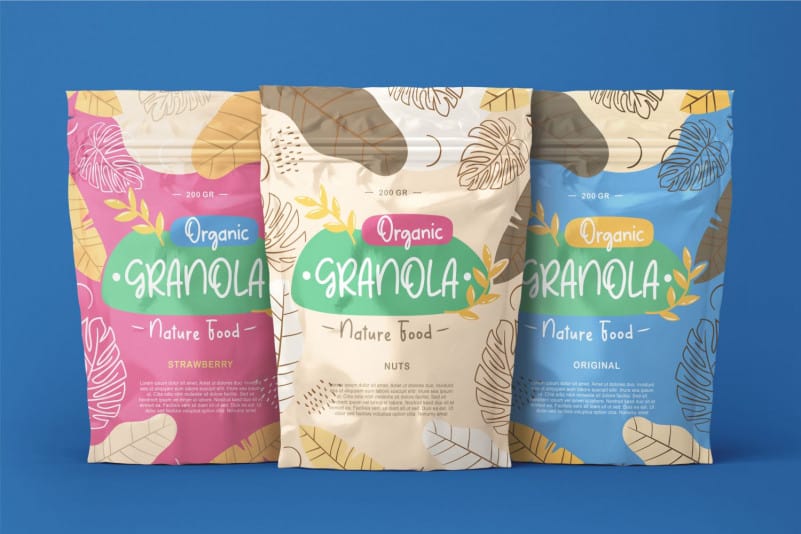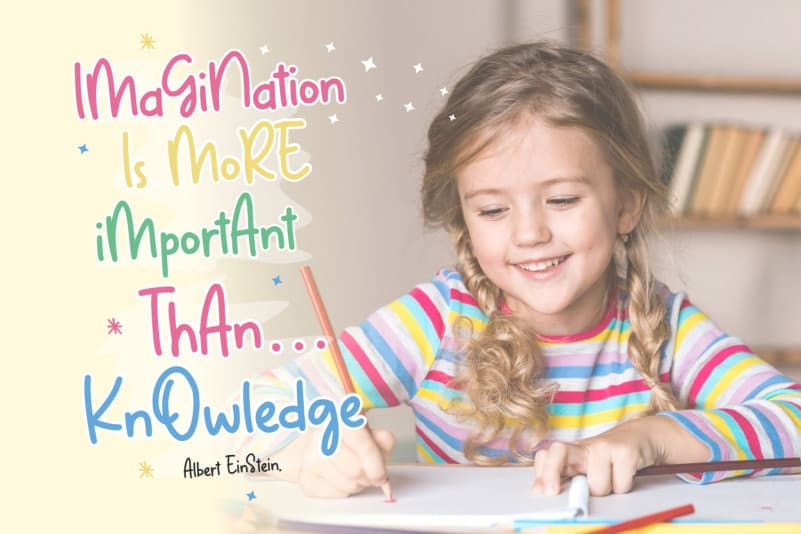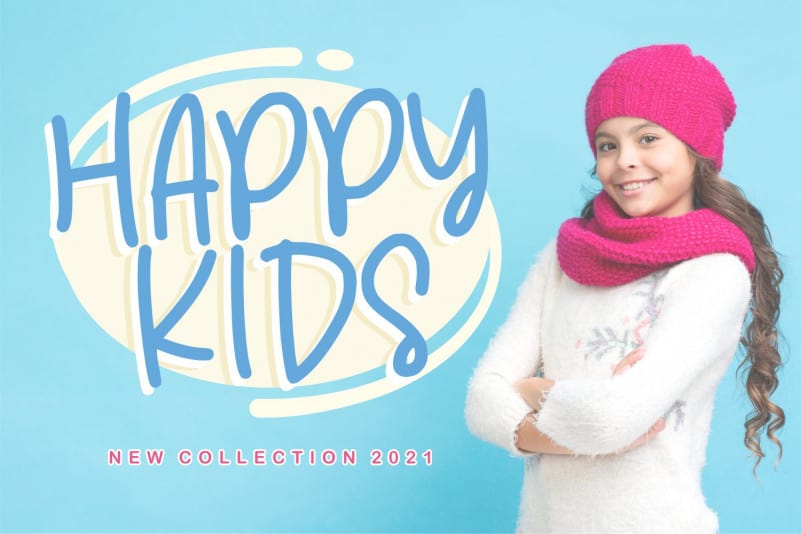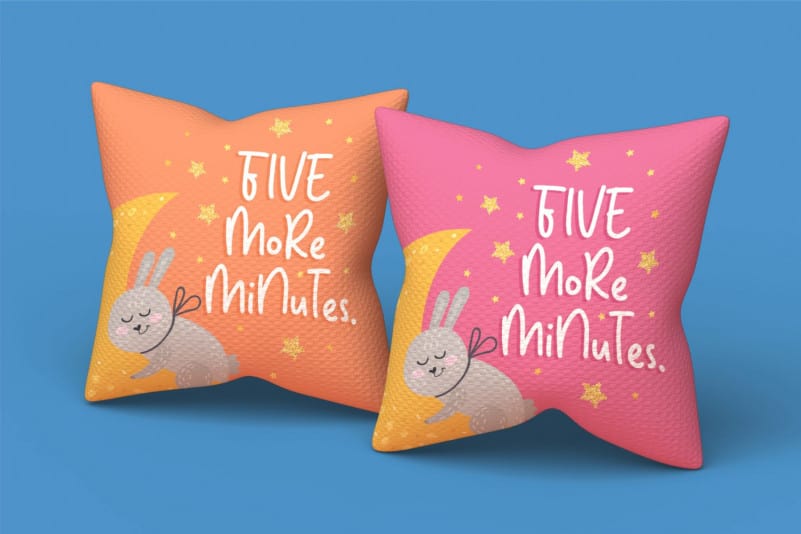
Yel Yeah Display Font
Yel Yeah Display Font is a whimsical script font with a relaxed theme, featuring a lovely style. No matter the topic, this font will be an incredibly asset to your fonts’ library, as it has the potential to elevate any creation.